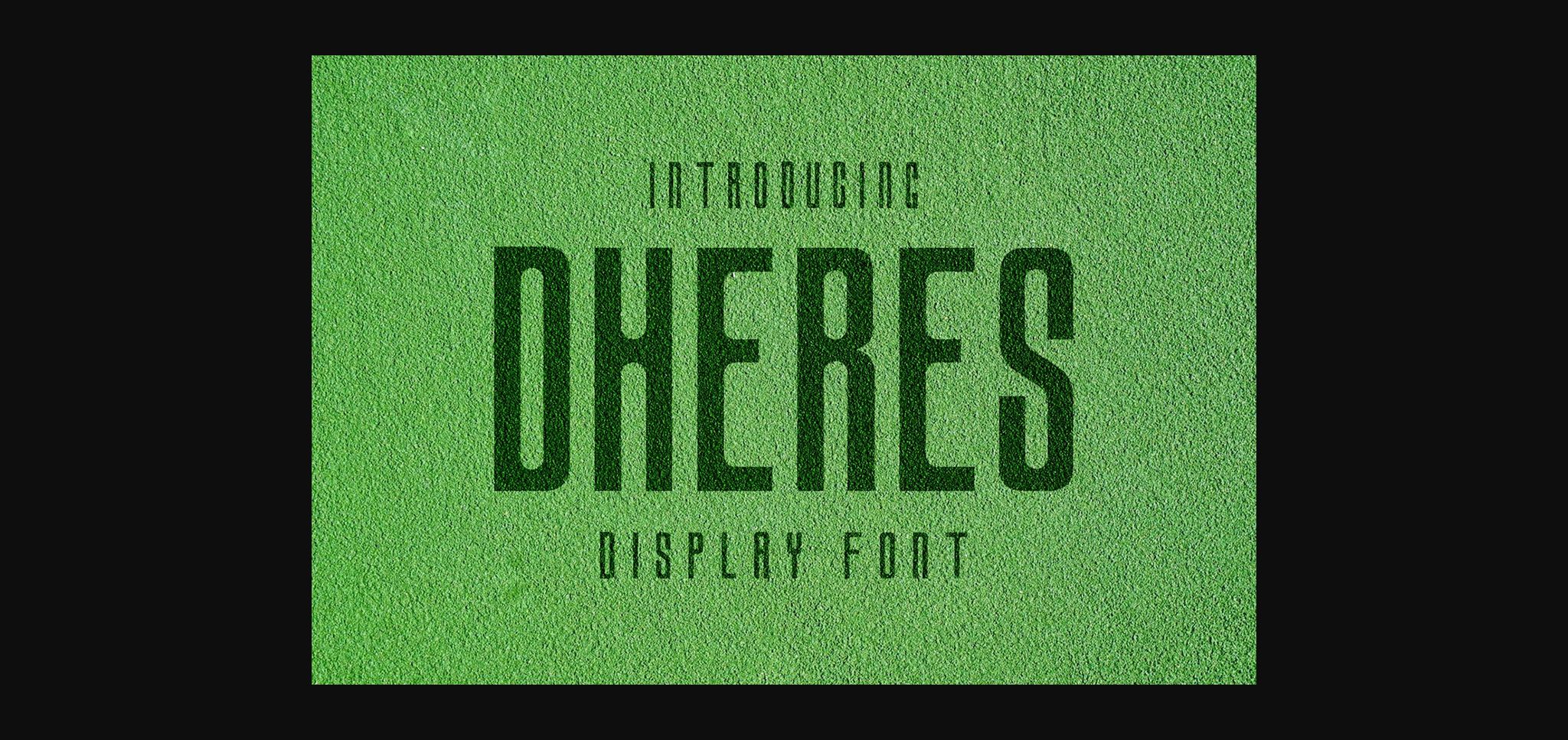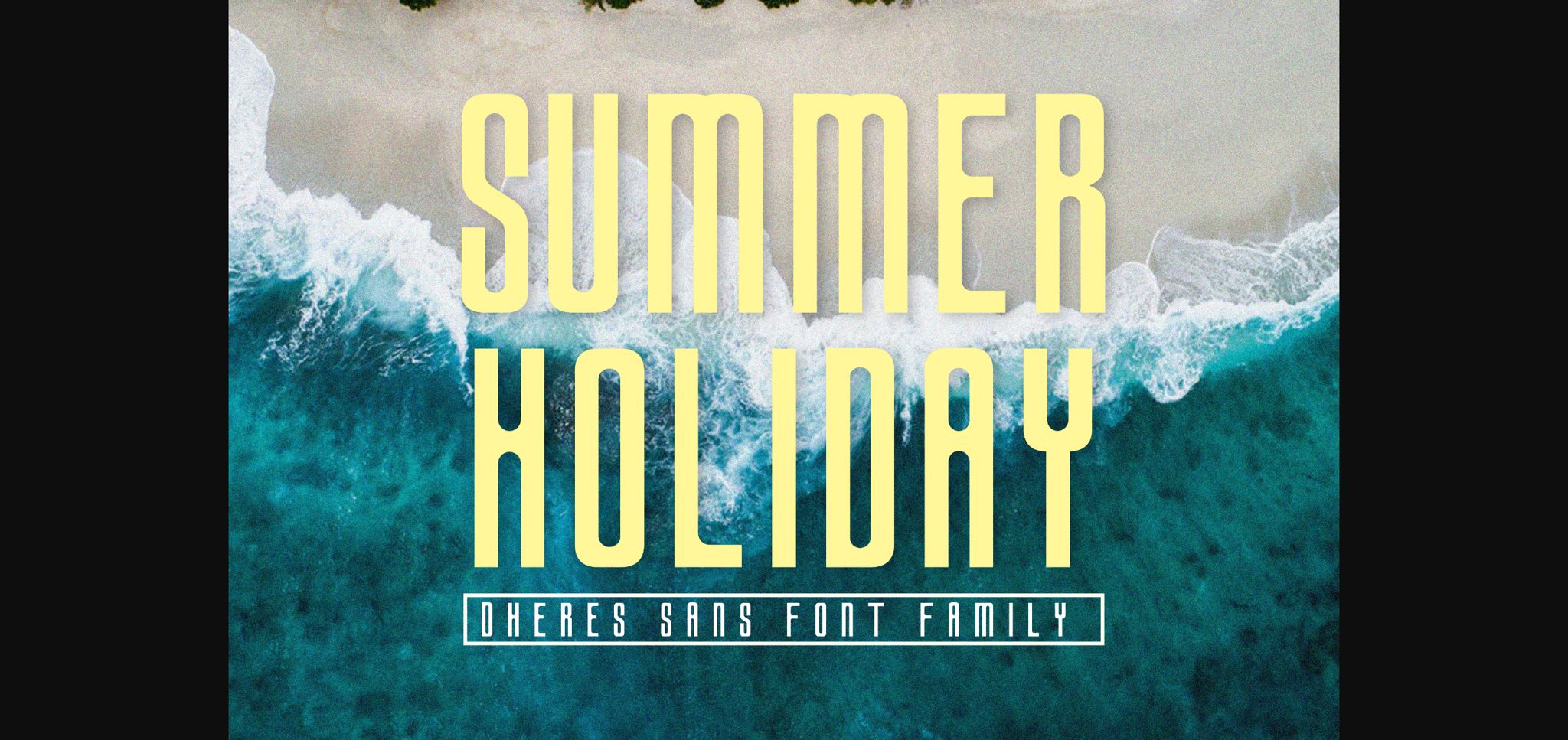
About Dheres Sans Font
Dheres Sans is a bold and retro styled sans serif font. This font reads as strong, confident, and dynamic and can add tons of nostalgic character to your designs.